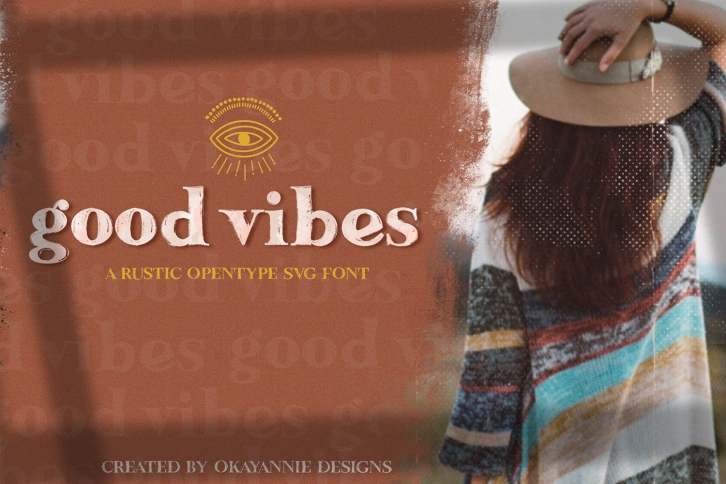
Good Vibes SVG & Graphics is a great font that was designed by OkayAnnie Designs. Imagine the amount of combinations you can create using this font! The archive is 3.59 MB and it was released on July 8, 2020. Good Vibes SVG & Graphics looks beautiful on wedding invitations, greeting cards, logos, posters, labels, t-shirt designs, logos, business cards and is perfect for use in ink or watercolor works, fashion, magazines, packaging and food menus, children's books and more!